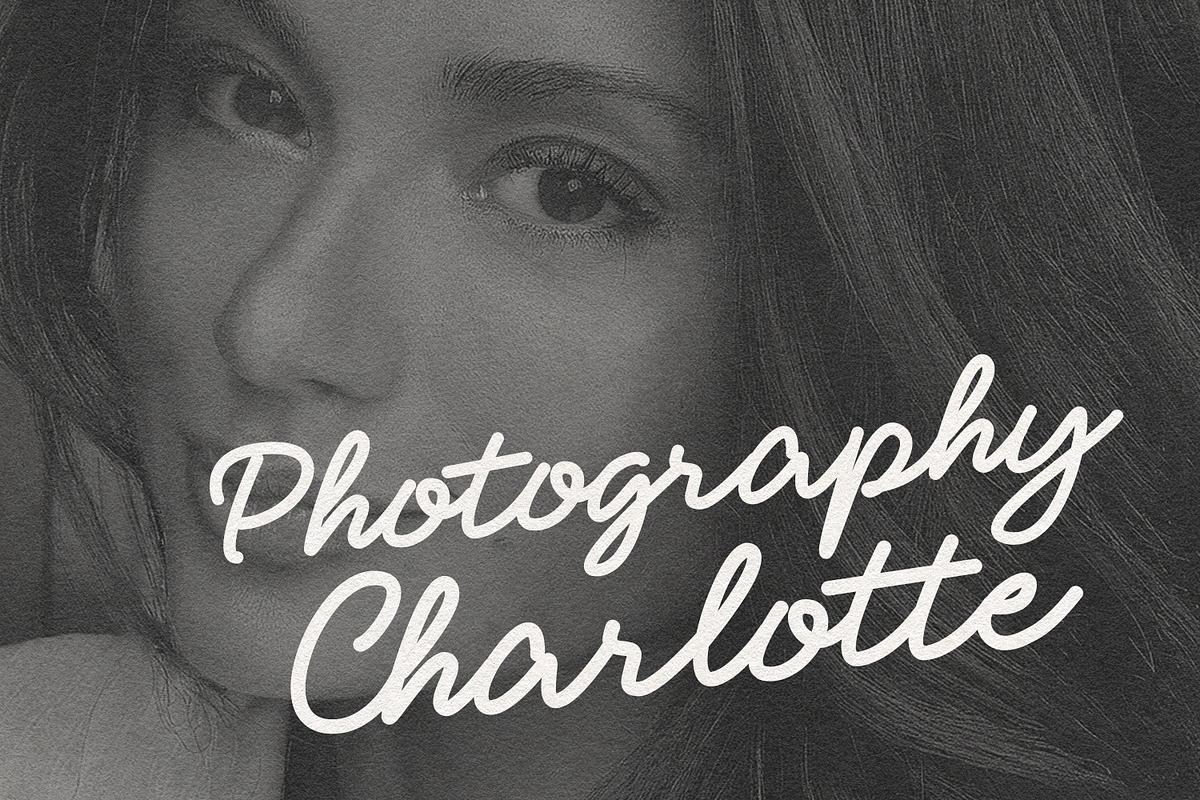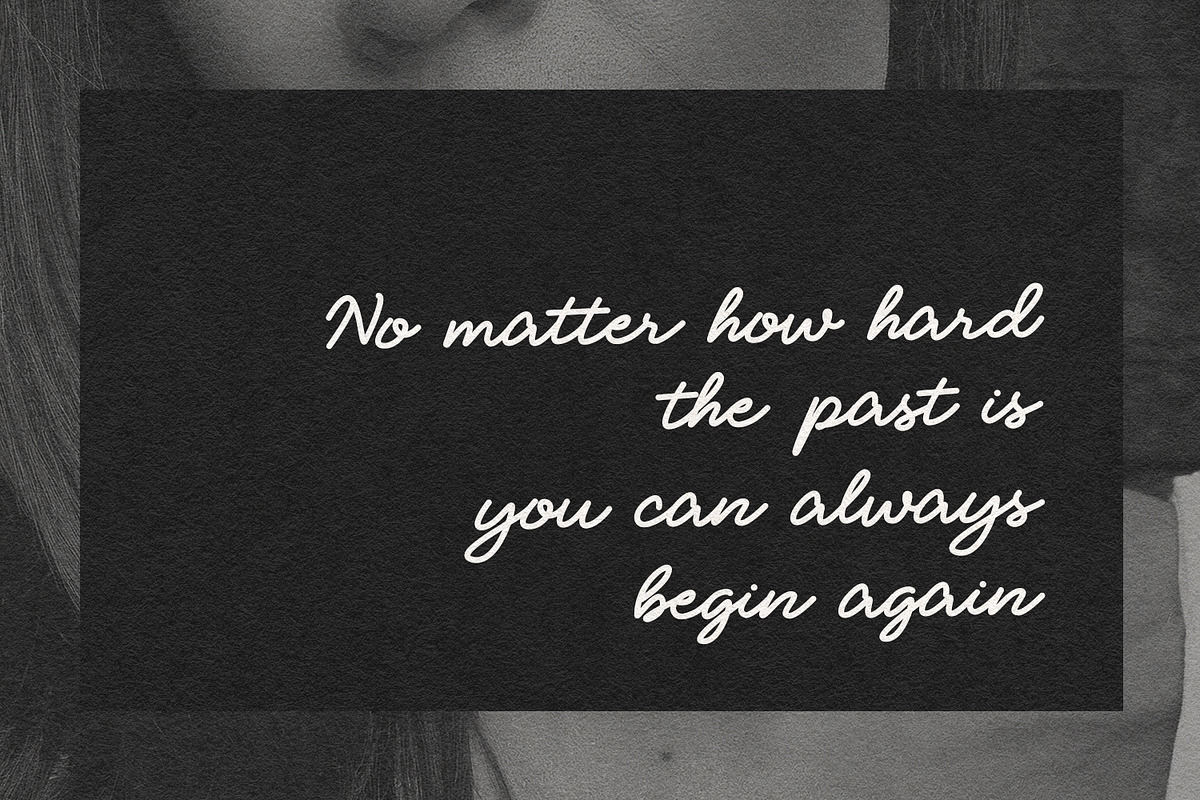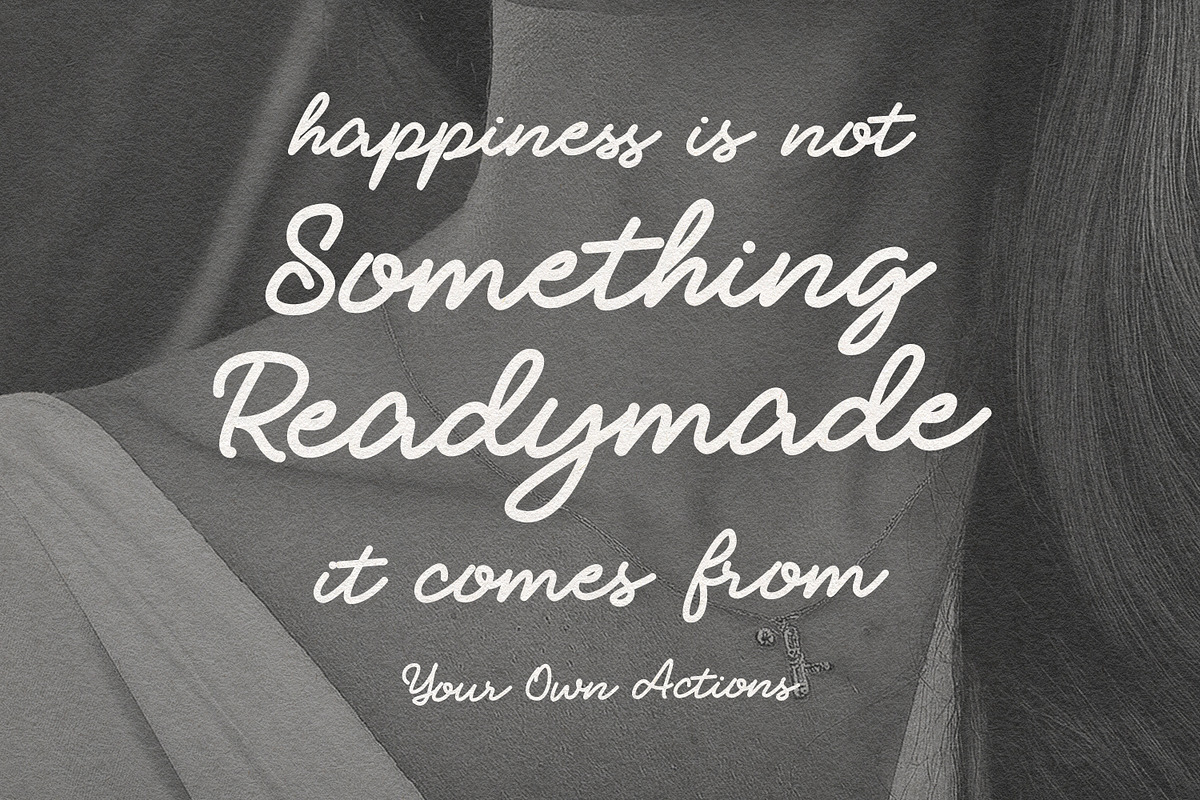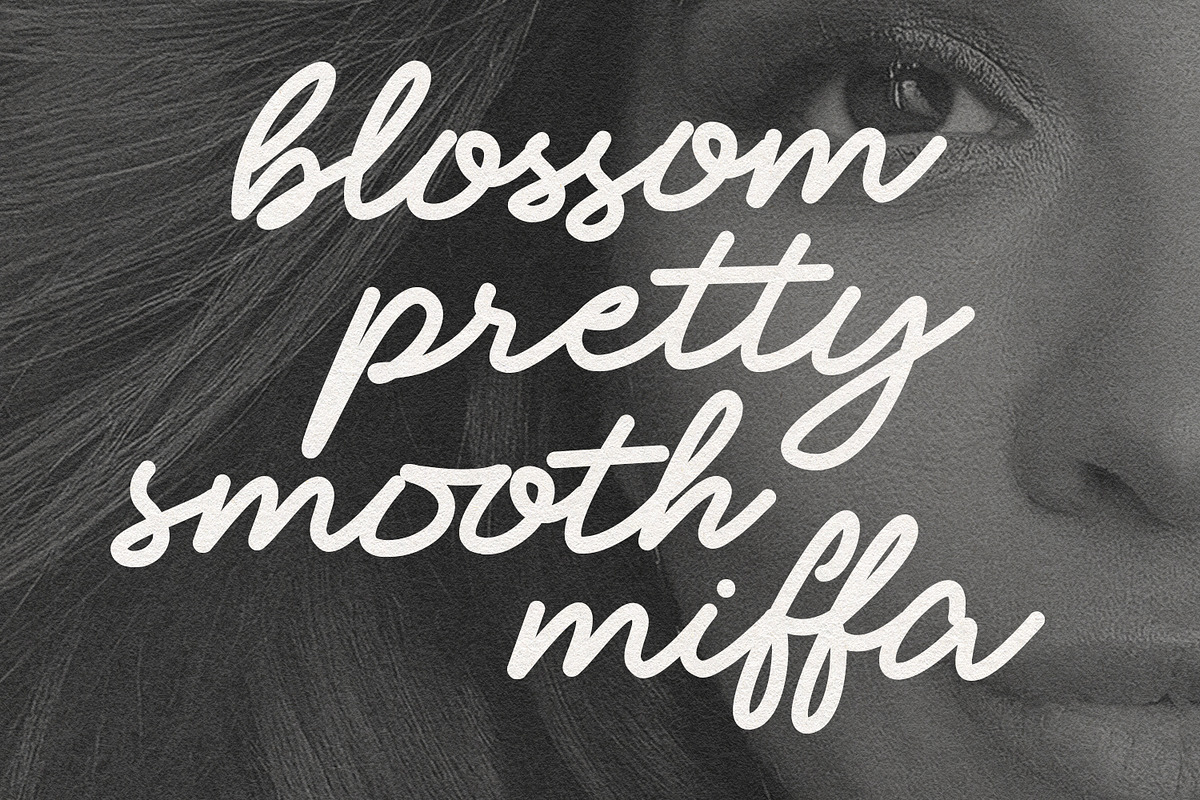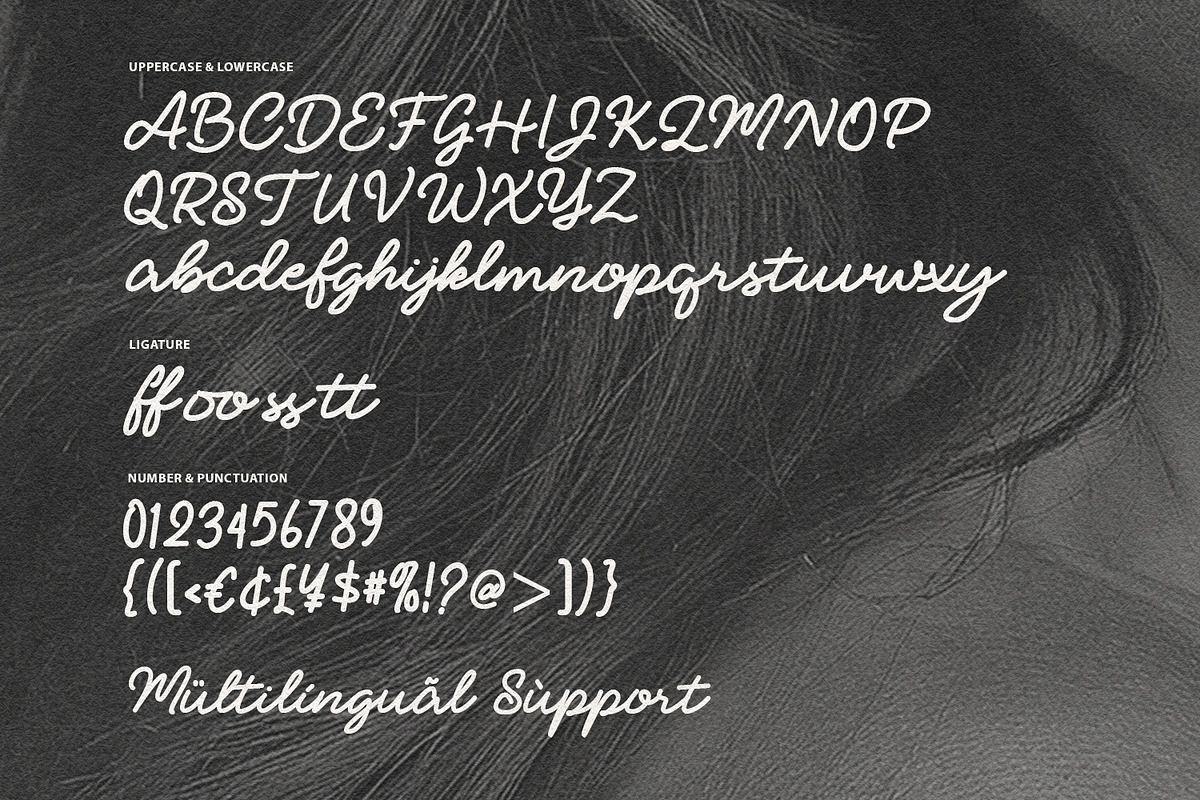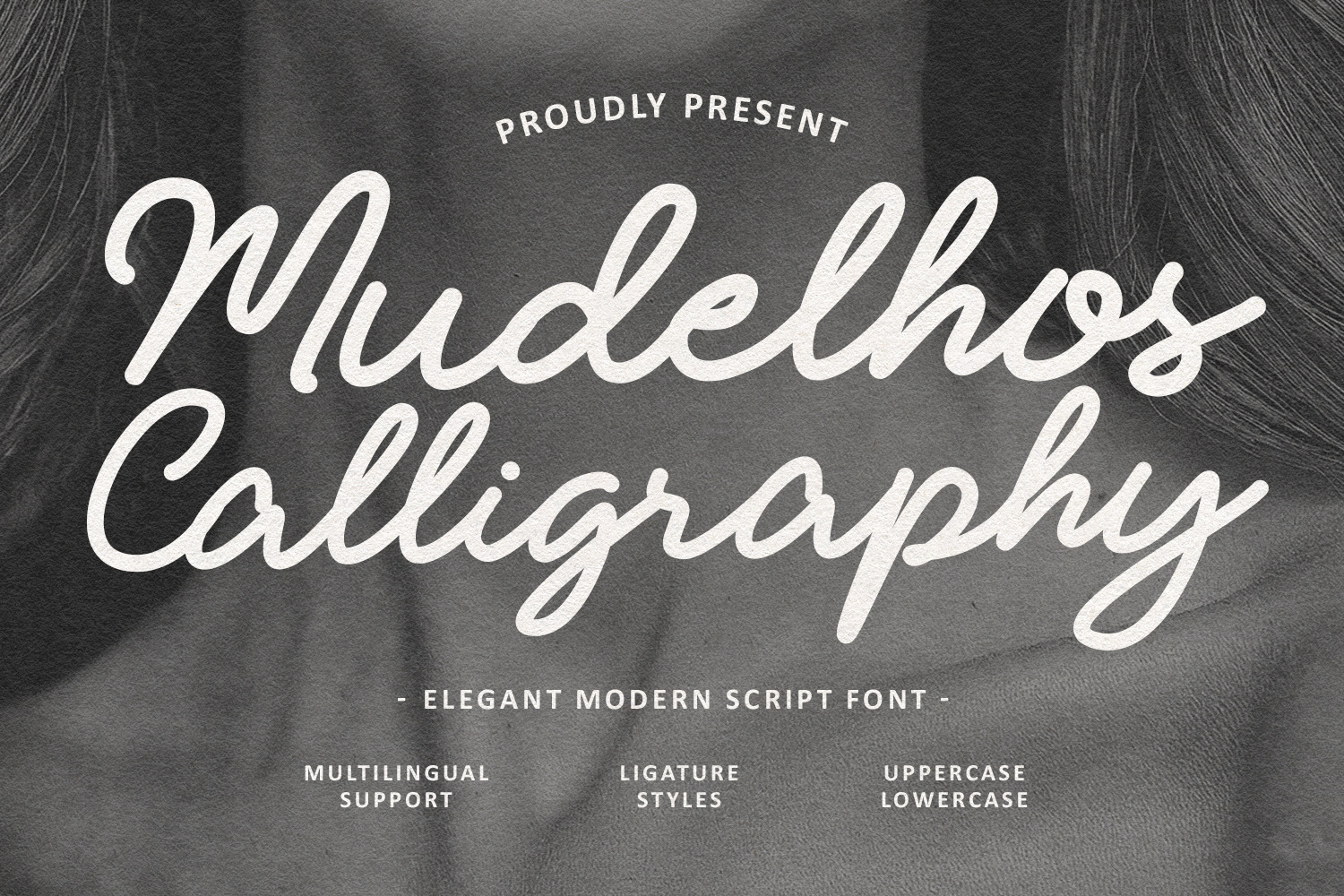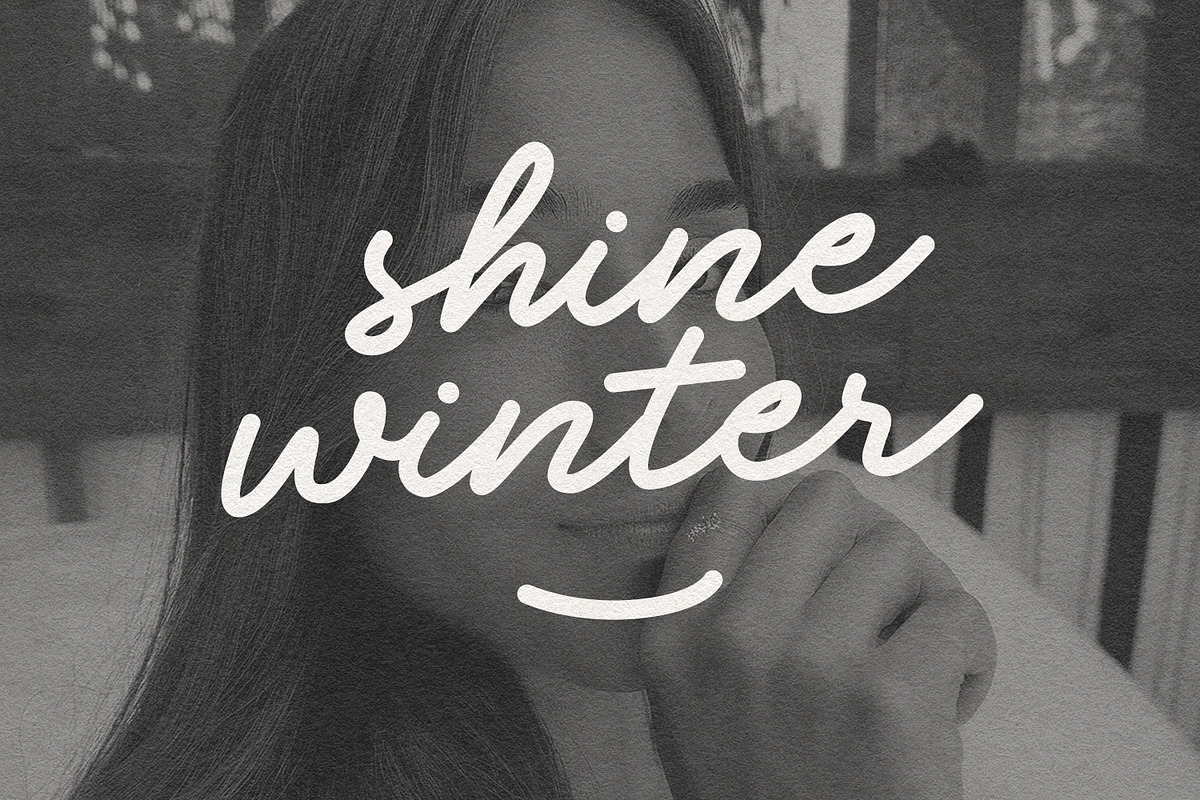
Mudelhos Calligraphy Script Font
Mudelhos is a sophisticated modern calligraphy script font that blends timeless elegance with a contemporary feel. Characterized by its fluid, hand-drawn strokes and organic rhythm, this font brings a personal and artistic touch to any creative project. It features a full set of uppercase and lowercase letters, numerals, and punctuations, along with specialized ligature styles that create a seamless, natural flow between characters.
Perfect for high-end branding, wedding invitations, photography watermarks, social media quotes, and editorial designs, Mudelhos offers multilingual support to ensure your message reaches a global audience. Whether you are designing a chic logo or a heartfelt greeting card, this font provides the perfect balance of luxury and readability.